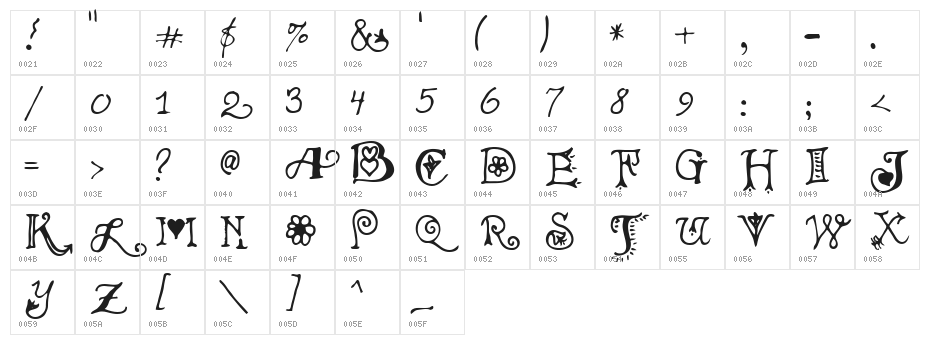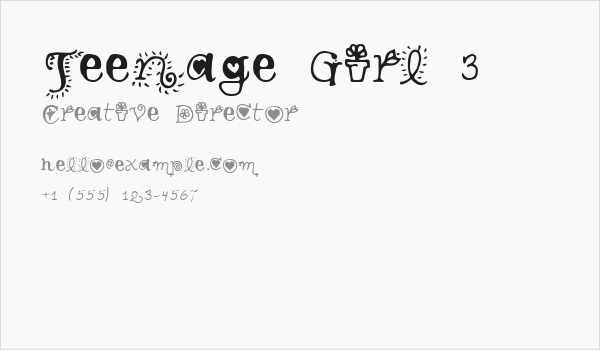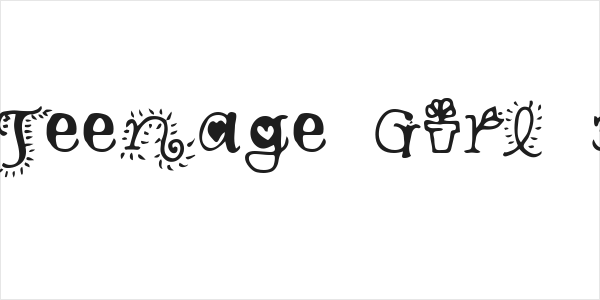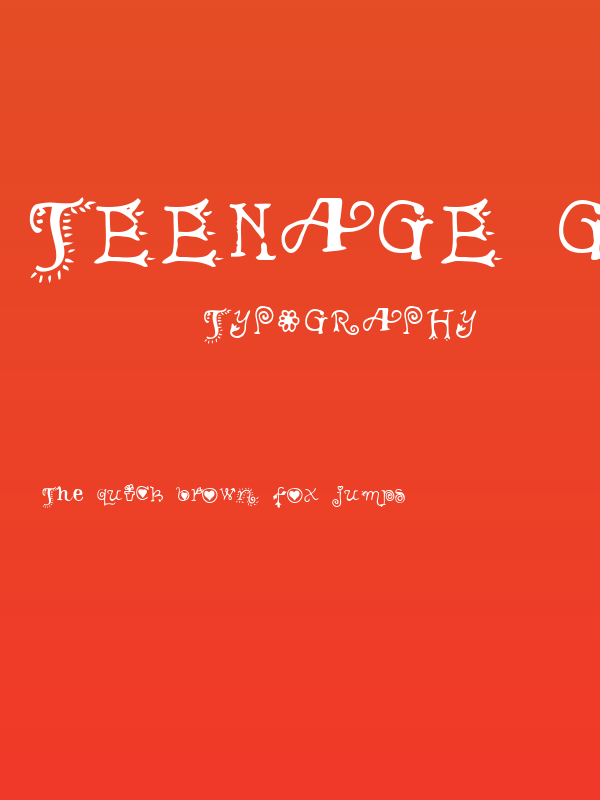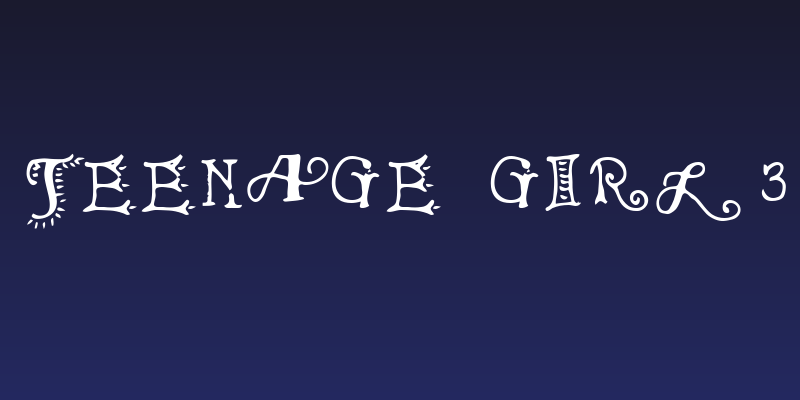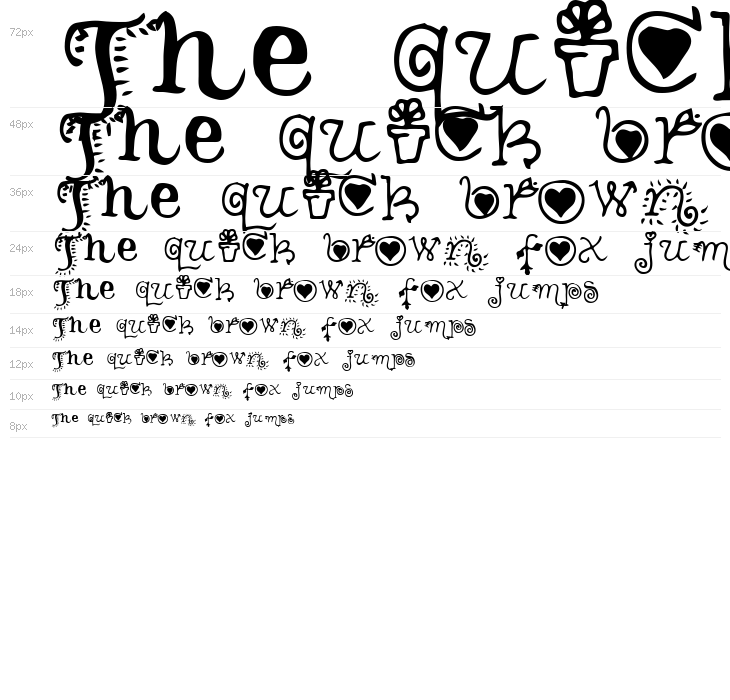
Teenage Girl 3 Font
Teenage Girl 3 Description
This font is a playful and whimsical decorative style, featuring a variety of unique embellishments on each character. The uppercase letters are adorned with elements like flowers, hearts, and stars, giving them a lively and youthful appearance. The lowercase letters continue this theme with similar decorative accents, creating a cohesive and imaginative look. The numerals and special characters are equally stylized, maintaining the font's overall playful aesthetic. This font is perfect for projects that require a fun and creative touch, such as children's book covers, party invitations, or playful branding materials.
| Proposed Projects | Ideal for children's book covers, party invitations, and playful branding materials. |